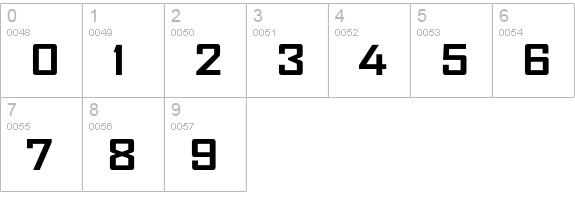
AgencyFB-BoldWide Font Details
AgencyFB-BoldWide is a striking and bold typeface that commands attention with its wide and powerful letterforms. The strong and authoritative design of this font makes it perfect for headlines, titles, and branding projects that require a bold statement. Its wide width adds a modern and dynamic feel to any design, making it stand out from the crowd. The best part is that AgencyFB-BoldWide is available for free download at FontsMarket.com. This means you can easily access this premium font without any cost, making it a valuable resource for designers looking to elevate their projects with a bold and impactful typeface. Don't miss out on the opportunity to enhance your designs with the impressive AgencyFB-BoldWide font, available for free at FontsMarket.com.